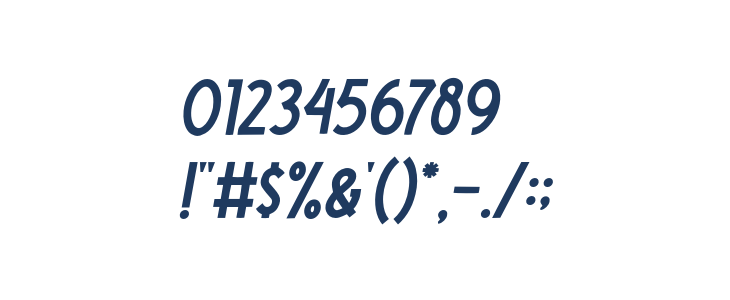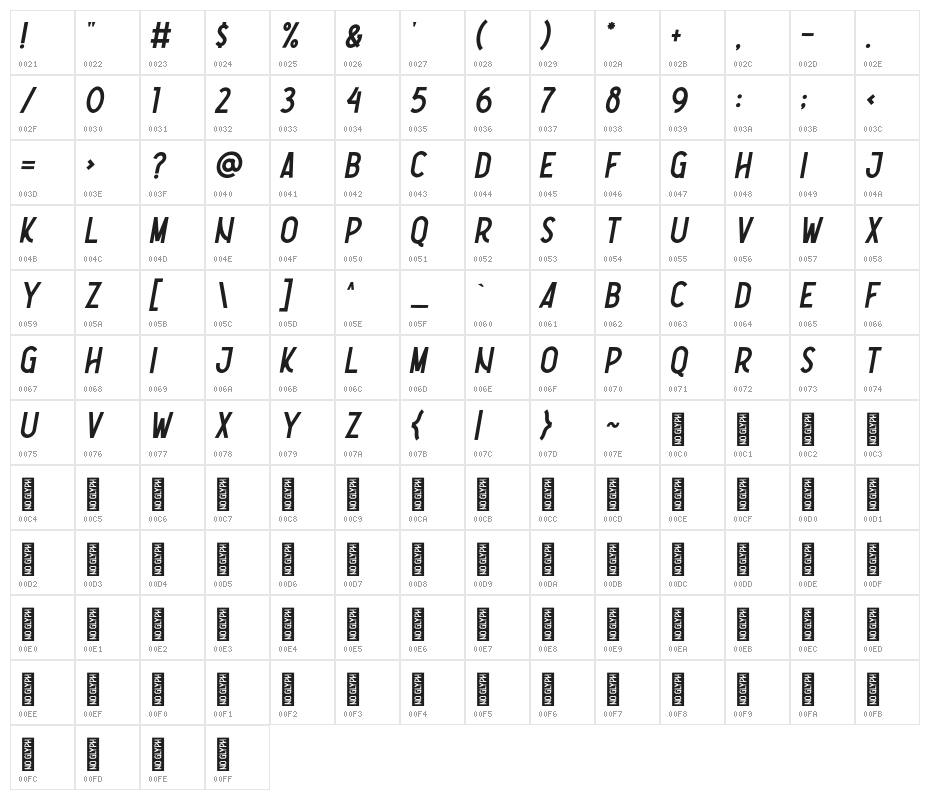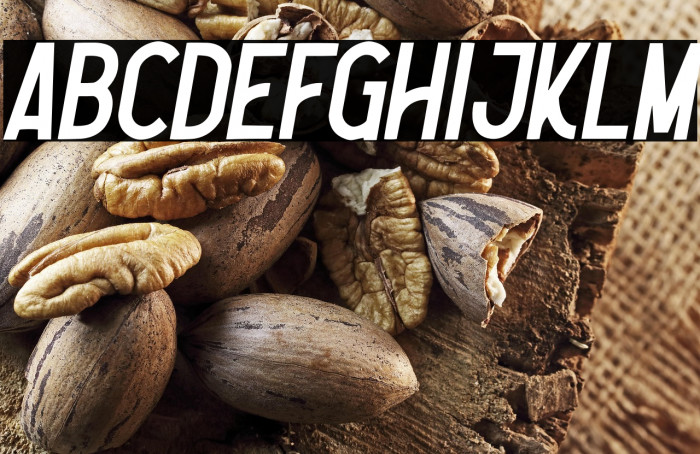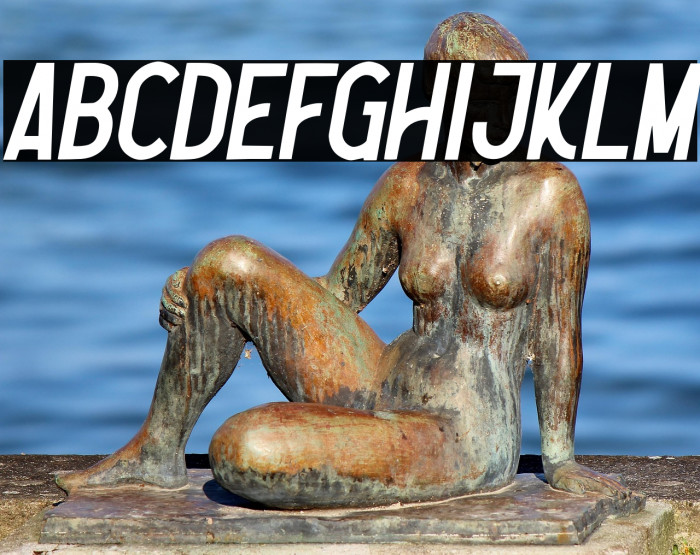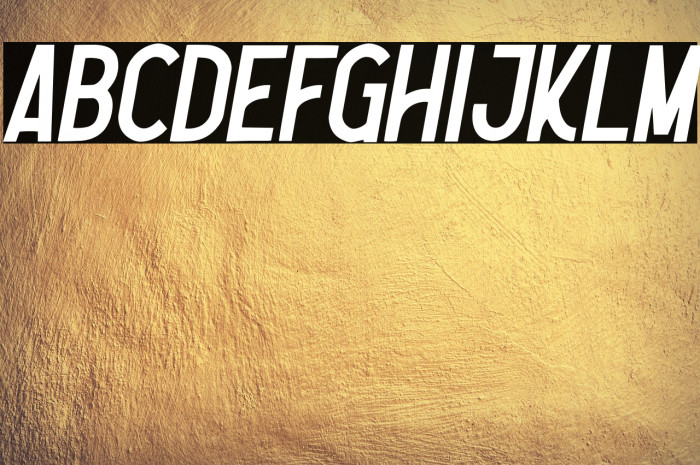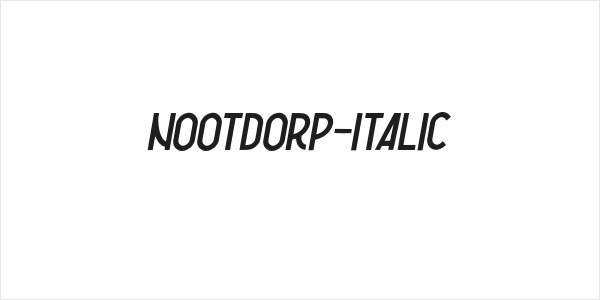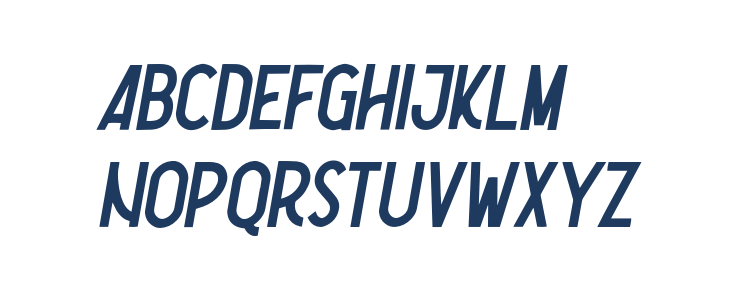
Nootdorp-Italic Font
Nootdorp-Italic Description
This font features a dynamic and energetic style with a pronounced italic slant, giving it a sense of motion and urgency. The characters are bold and slightly condensed, with a consistent stroke width that provides a uniform appearance. The uppercase letters are tall and commanding, while the lowercase letters maintain a balanced proportion. The numerals are clear and distinct, ensuring readability. Special characters are designed to complement the overall style, making this font versatile for various applications.